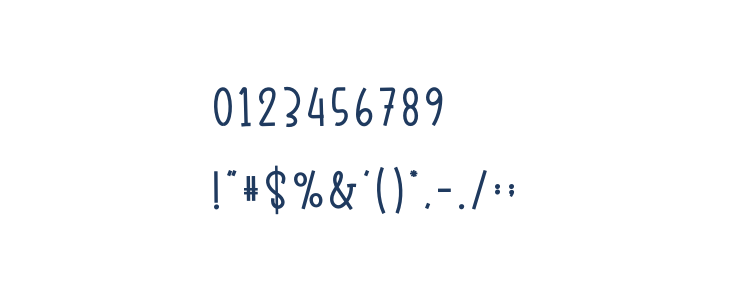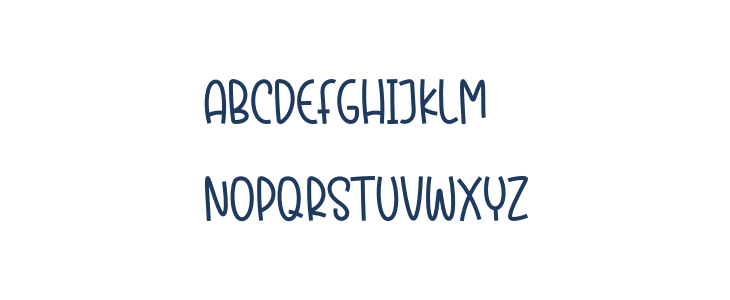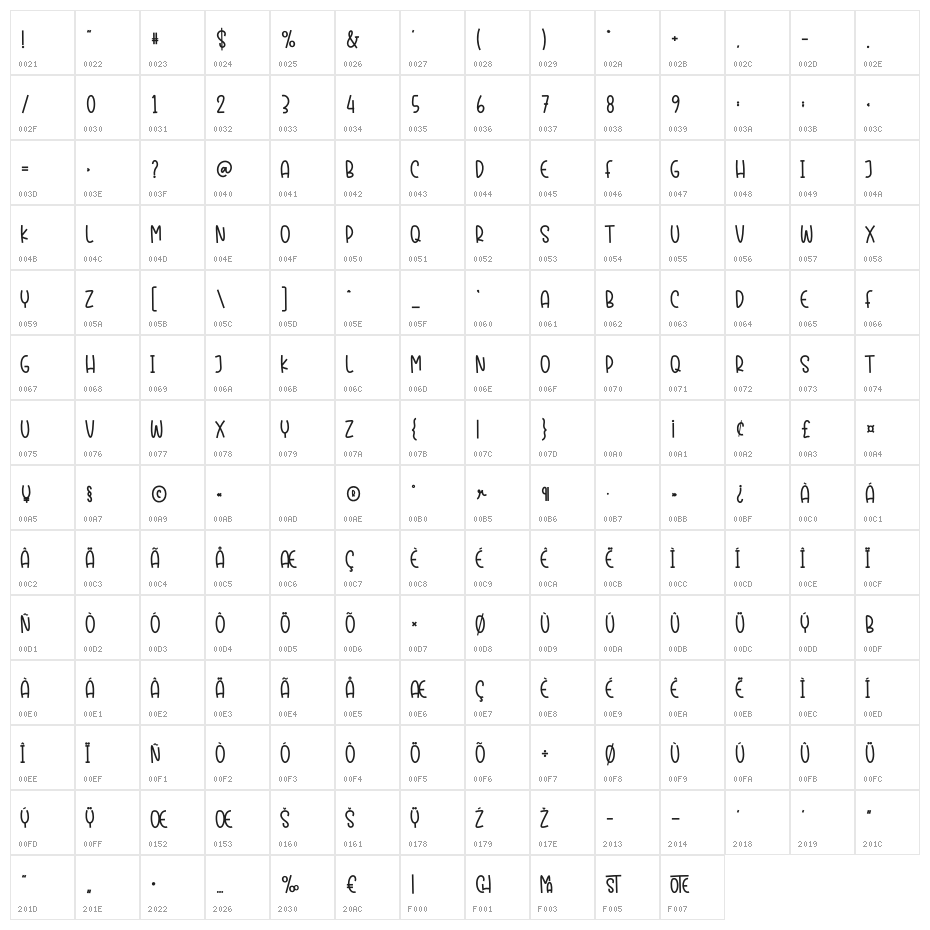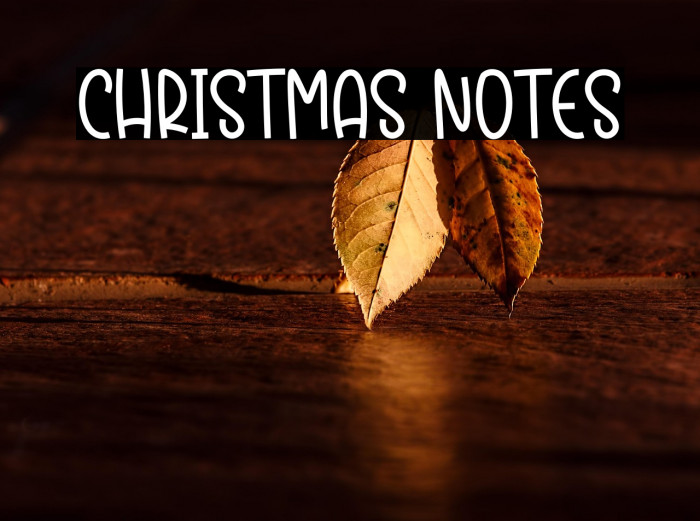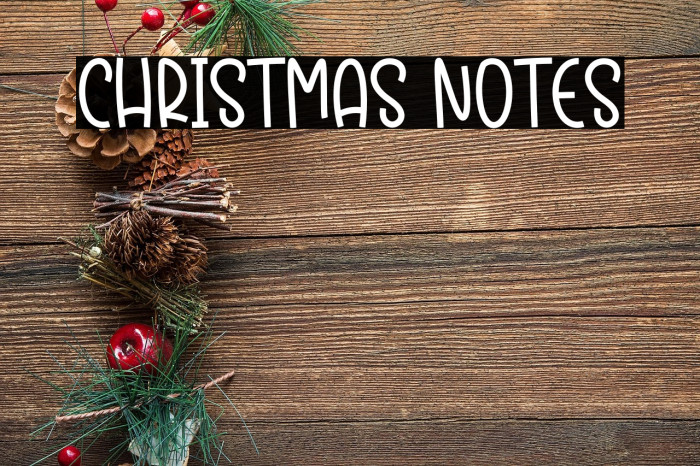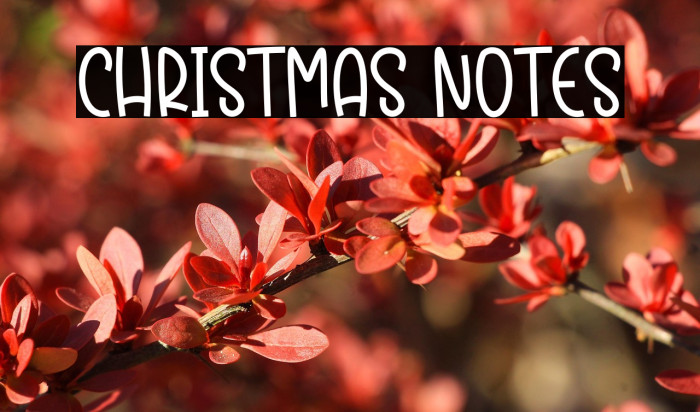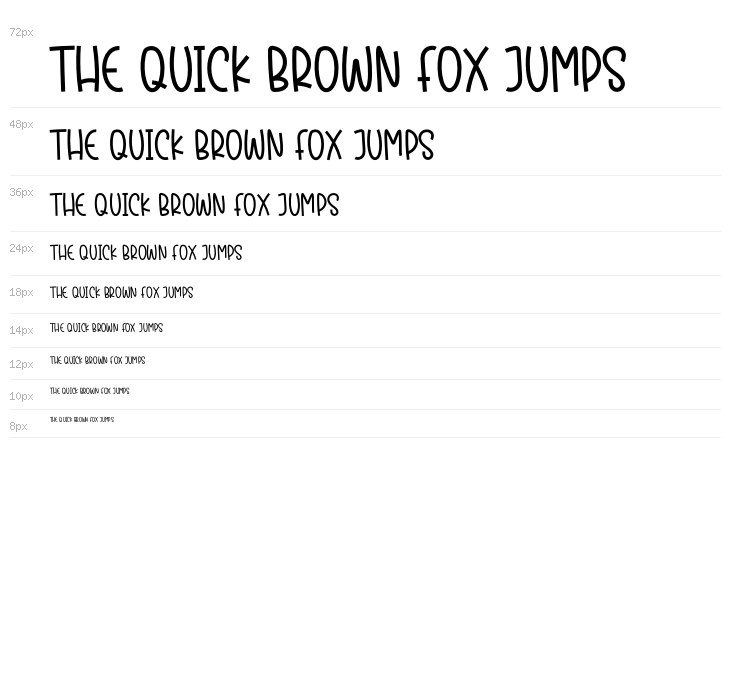
Christmas Notes Font
Christmas Notes Description
A playful, handwritten sans-serif font with rounded edges and irregular, slightly whimsical letterforms. The characters have a casual, informal appearance, with consistent stroke width and a friendly, approachable style.
| Overall Style | Playful, Casual, Whimsical |
| Use Case | Greeting cards, Invitations, Posters, Children's materials |
| Proposed Projects | Greeting cards, children's books, holiday invitations, playful branding, posters. |